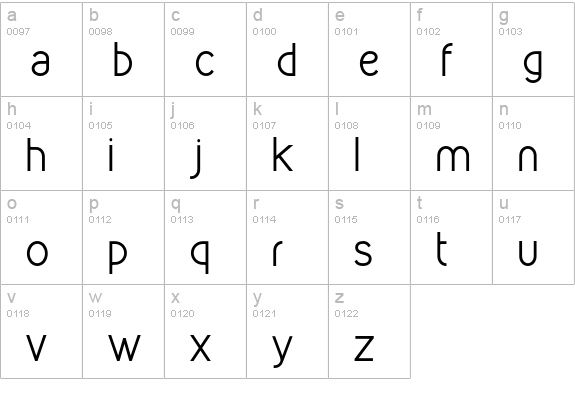
Kirvy Regular Font Details
Kirvy Regular is the standard, neutral variant in the Kirvy typeface family \xE2\x80\x94 well suited to general body text, paragraphs, and standard typographic work.
Kirvy Regular is a beautifully designed font that exudes elegance and sophistication. With its clean lines and balanced proportions, it is perfect for any design project that requires a touch of refinement. The classic yet modern look of this font makes it versatile and suitable for a wide range of applications, from branding and packaging to editorial design and web graphics. One of the standout features of Kirvy Regular is its versatility. It can effortlessly adapt to different styles and themes, seamlessly complementing any design concept. Whether you are creating a minimalist logo or a bold headline, this font will bring your vision to life with its timeless appeal. What makes Kirvy Regular even more appealing is the fact that it is available for free. Yes, you read that right! This high-quality font can be freely downloaded at FontsMarket.com, a trusted source for premium fonts. Whether you're a professional designer or a hobbyist, having access to a free font like Kirvy Regular can significantly enhance your creative endeavors. When you choose Kirvy Regular, you are not only getting a beautiful font, but also a reliable and versatile tool that will elevate your designs to new heights. Its effortless elegance and seamless adaptability make it a must-have for any designer's toolkit. So don't miss out on this opportunity to enhance your projects with Kirvy Regular – head over to FontsMarket.com and download it for free today!